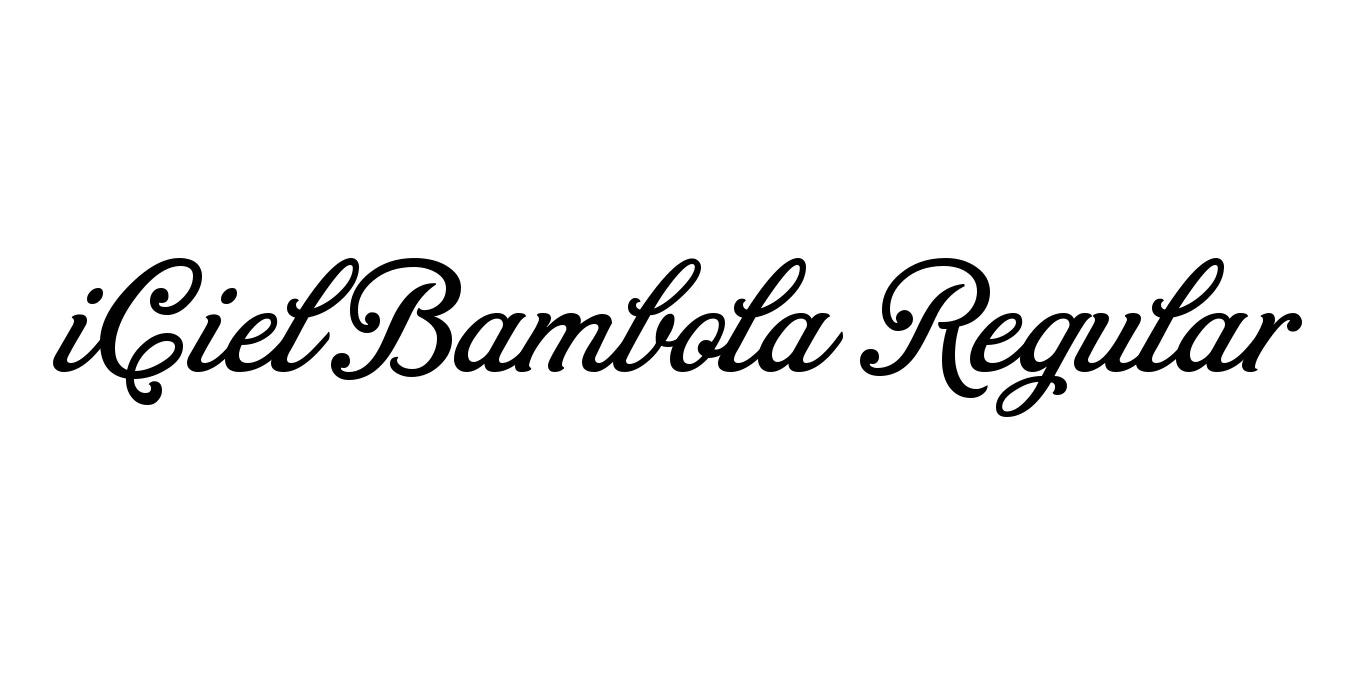
iCiel Bambola Regular
Designed by iCiel
iCiel Bambola Regular is a charming and whimsical script typeface characterized by its playful, bouncy baseline and organic, hand-lettered aesthetic. Developed by the iCiel foundry, this font is designed to evoke a sense of spontaneous creativity and warmth, making it a standout choice for projects that require a personal touch. The letterforms are fluid and expressive, featuring soft, rounded terminals and rhythmic stroke variations that mimic the motion of a brush or marker.
Since its release, iCiel Bambola has gained significant popularity within the design community, particularly for its ability to balance casual fun with elegant legibility. It is frequently employed in celebratory contexts, such as wedding invitations and social media graphics, where its unique personality can truly shine. Its versatility ensures it remains a staple for designers looking to inject a touch of human connection and artistic flair into modern branding and editorial layouts.
iCiel Bambola Regular Best Uses
Excellent for creating approachable and friendly brand identities.
Perfect for personal notes, invitations, and holiday cards.
Ideal for high-engagement Instagram quotes and decorative graphics.
Adds a handcrafted, boutique feel to product labels and boxes.